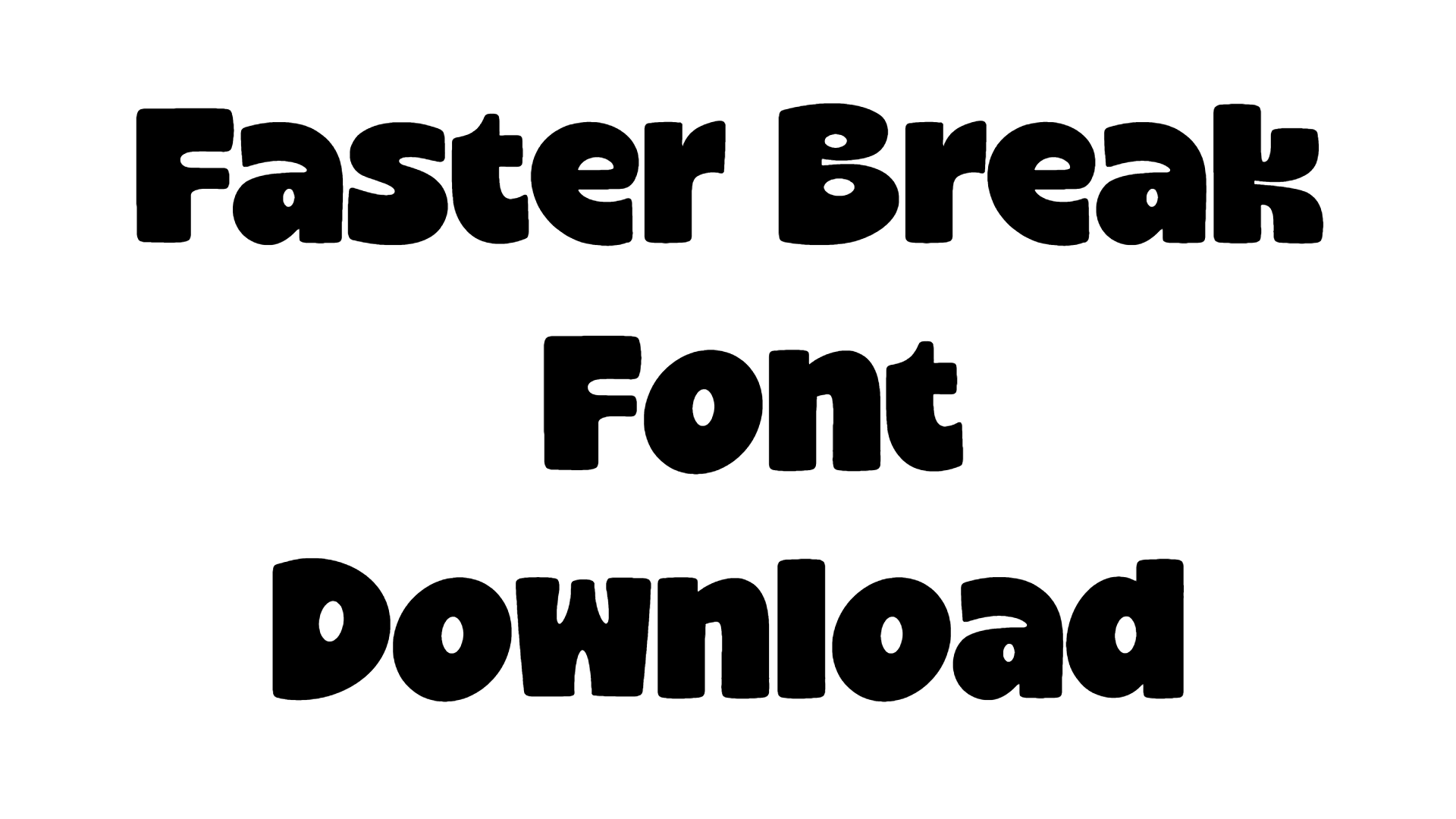
Faster Break Font
Faster Break
Faster Break is a groovy font designed by Toni Setiawan and published by Namara Creative. It has the soft, swirly, rounded shapes of 1970s posters and album covers. It's a free download, and you can try it with your own text in the preview above first.
What You Can Type With Faster Break
You get every letter from A to Z in both cases and all the numbers from 0 to 9, which means Faster Break can handle full sentences, dates and prices. Everyday marks like &, !, ? and @ are there too. It has 52 accented letters, but not the full set for Spanish or French, so test any non-English words first.
Where Faster Break Works Best
Faster Break is a natural fit for 70s-style posters, music flyers and retro logos. Warm colors like orange, mustard and brown bring out its retro feel.
Does Faster Break support accented letters?
Partly. Faster Break has 52 accented letters, but not the complete set for Spanish, French or German. Type your words in the preview above to check before you use it.
What fonts pair well with Faster Break?
Keep the supporting text simple. A rounded sans serif works well next to it.